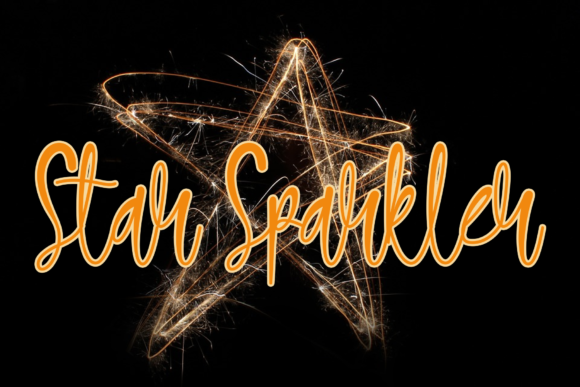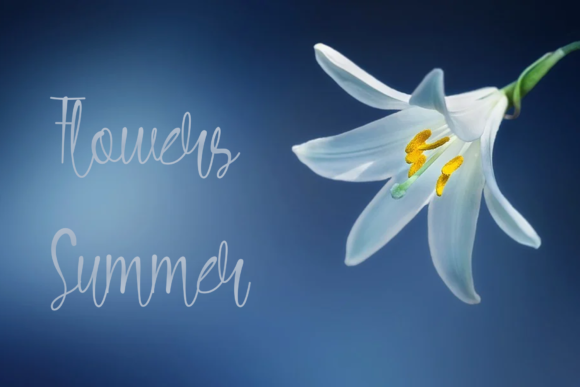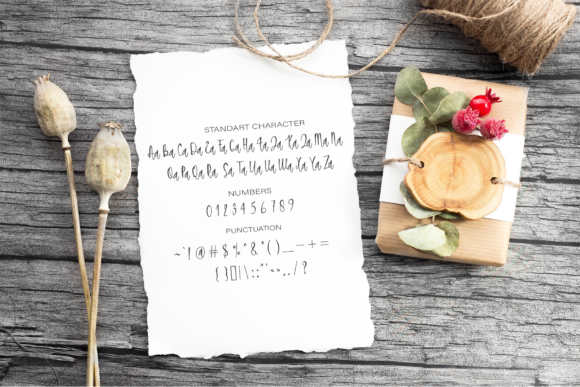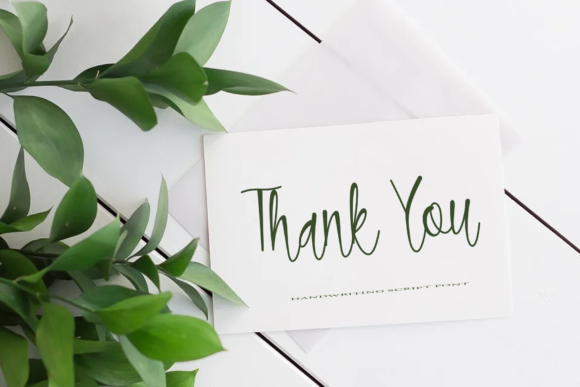
Introduction to July Summer Font
July Summer is a smooth and beautiful handwritten font.
This font is suitable for writing letters, signatures, and various other types of products .